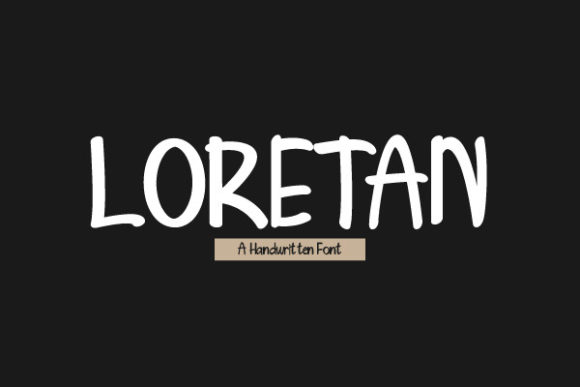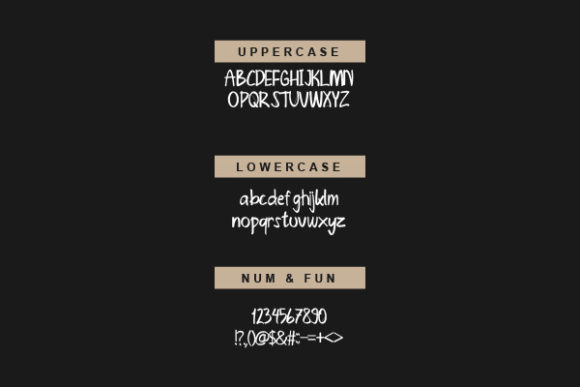
Loretan Font
About Loretan Font
Loretan is a handwritten market font. It’s fun, clean, and works great in comic designs, posters, or quote designs. Use it for your most creative projects, and you will love the results!